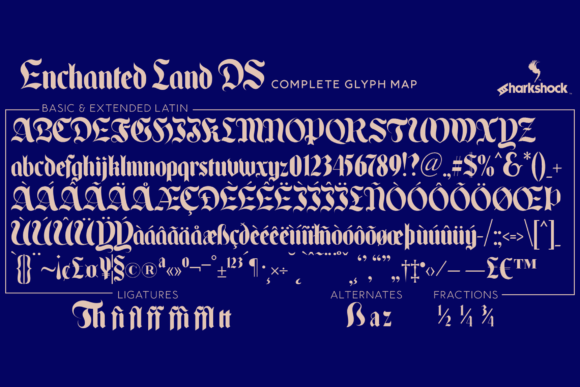
Discover the Whimsical World of Enchanted Land DS Font
Embark on a medieval adventure with the second installment of the Enchanted Land family, a captivating script that whisks you away to a realm of wonder and magic. Enchanted Land DS Font is a carefully crafted typeface that eschews refinement for a more rugged, enchanting approach. This font family is a treasure trove of inspiration for designers and crafters seeking to add a touch of old-world charm to their projects.
A New Chapter in the Enchanted Land Family
Rather than refining the legacy script, the creators of Enchanted Land DS opted to completely rebuild the font from the ground up. This bold decision allowed them to focus on injecting new life into the uppercase characters, imbuing them with an undulating quality that guides the eye through the text with ease. The result is a fluid, organic feel that draws you into the world of medieval fantasy.
The Art of Elegant Terminals and Swashes
One of the defining features of Enchanted Land DS is its deliberate avoidance of straight lines and right angles. Instead, the font boasts flamboyant terminals and wispy swashes that dance across the page. These elegant flourishes add a touch of sophistication and whimsy, making the font perfect for projects that require a sense of drama and flair. Whether you’re designing a book, video game, or medieval signage, Enchanted Land DS is sure to captivate your audience.
A Study in Contrasts: Uppercase and Lowercase Characters
While the uppercase characters in Enchanted Land DS are characterized by their flowing, curved lines, the lowercase characters take a more structured approach. The lowercase model is defined by straightened edges and sharp corners, creating a delightful contrast between the two. This juxtaposition adds visual interest and depth to the font, making it a versatile choice for a wide range of applications.
A Blend of Old-World Styles
Enchanted Land DS Font is a true melting pot of old-world styles, drawing inspiration from German Blackletter, Old English, Uncial, and Victorian typography. Rather than emulating these styles outright, the font borrows elements to create a unique, hybrid script that feels both nostalgic and fresh. This eclectic approach ensures that Enchanted Land DS remains a distinctive and eye-catching choice for designers and crafters.
Applications for Enchanted Land DS Font
So, where can you use this enchanting font? The possibilities are endless! Enchanted Land DS would be a natural fit for:
- Book design: Add a touch of medieval magic to your novel or historical non-fiction book with Enchanted Land DS.
- Video games: Create an immersive gaming experience with a font that transports players to a fantasy world.
- Medieval signage: Whether you’re designing a logo, banner, or directional sign, Enchanted Land DS is the perfect choice for creating an authentic, old-world feel.
Enchanted Land DS Font is a captivating script that will transport you to a world of wonder and magic. With its unique blend of old-world styles, elegant terminals, and whimsical swashes, this font is sure to delight designers and crafters alike. Whether you’re working on a book, video game, or medieval-themed project, Enchanted Land DS is the perfect choice for adding a touch of enchantment and sophistication.